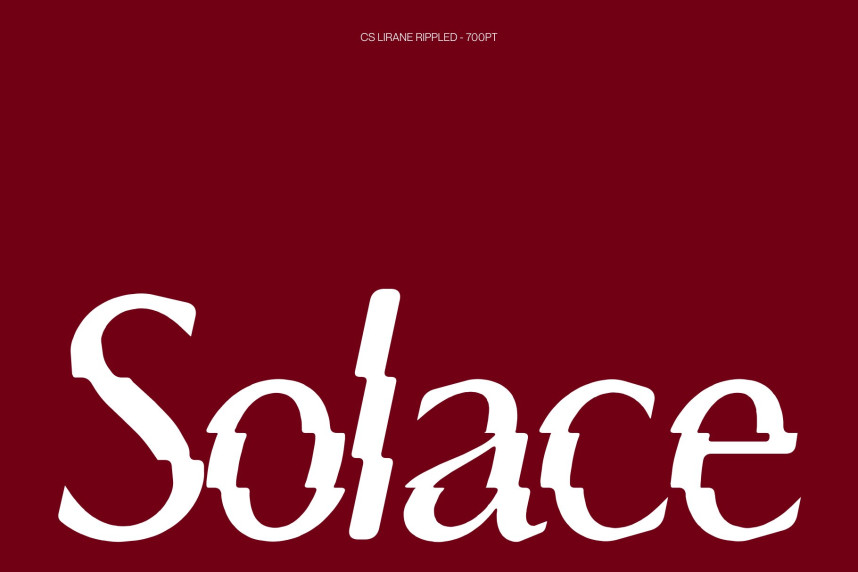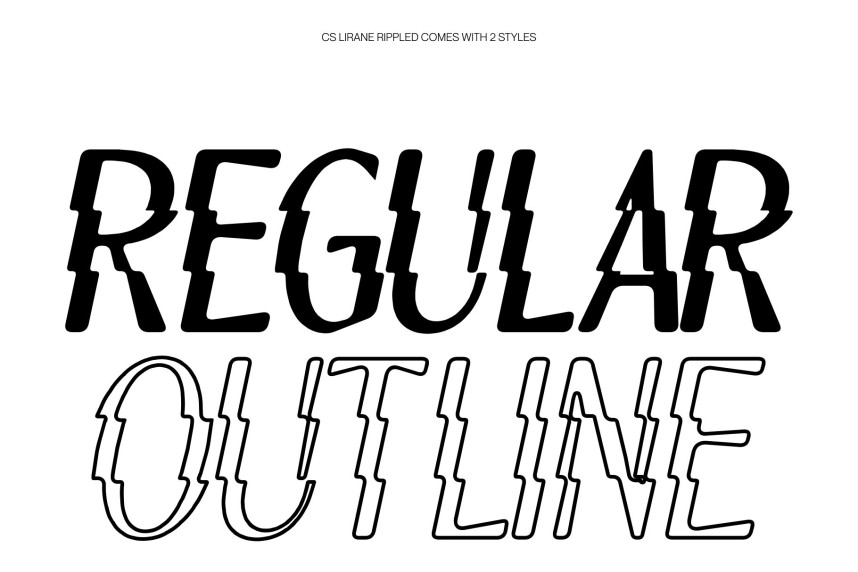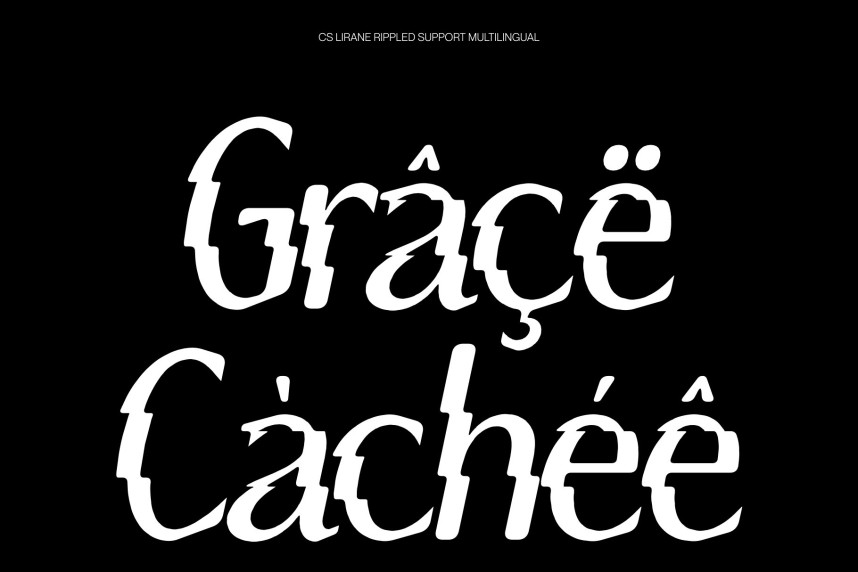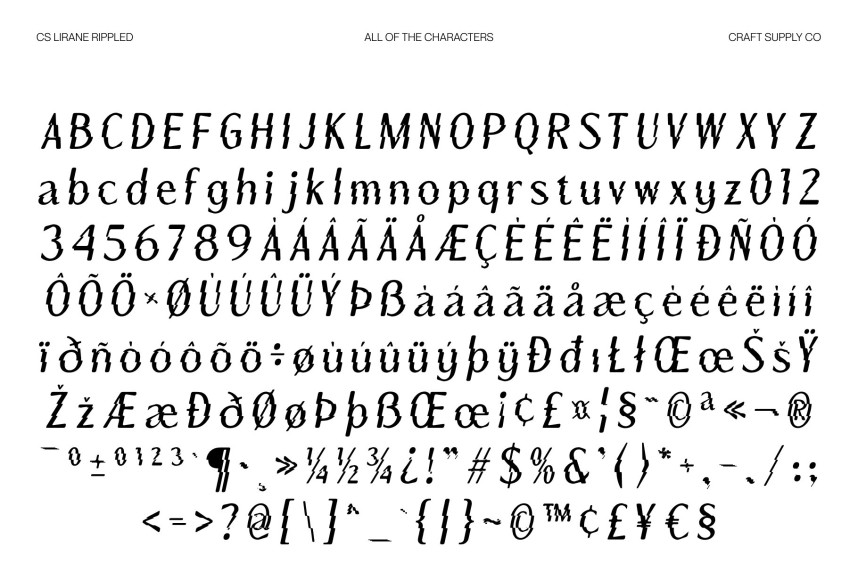
CS Lirane Rippled Font
CS Lirane Rippled Font – Modern Sans Serif Font: Where Geometric Clarity Meets Fluid Wave Motion
Contemporary Geometry with Clean Simplicity
This is a modern sans serif font that embodies a contemporary aesthetic through its geometric shapes, balanced proportions, and clean lines. Designed with clarity and refinement in mind, it delivers a sleek and versatile visual presence that feels modern, approachable, and effortlessly stylish.